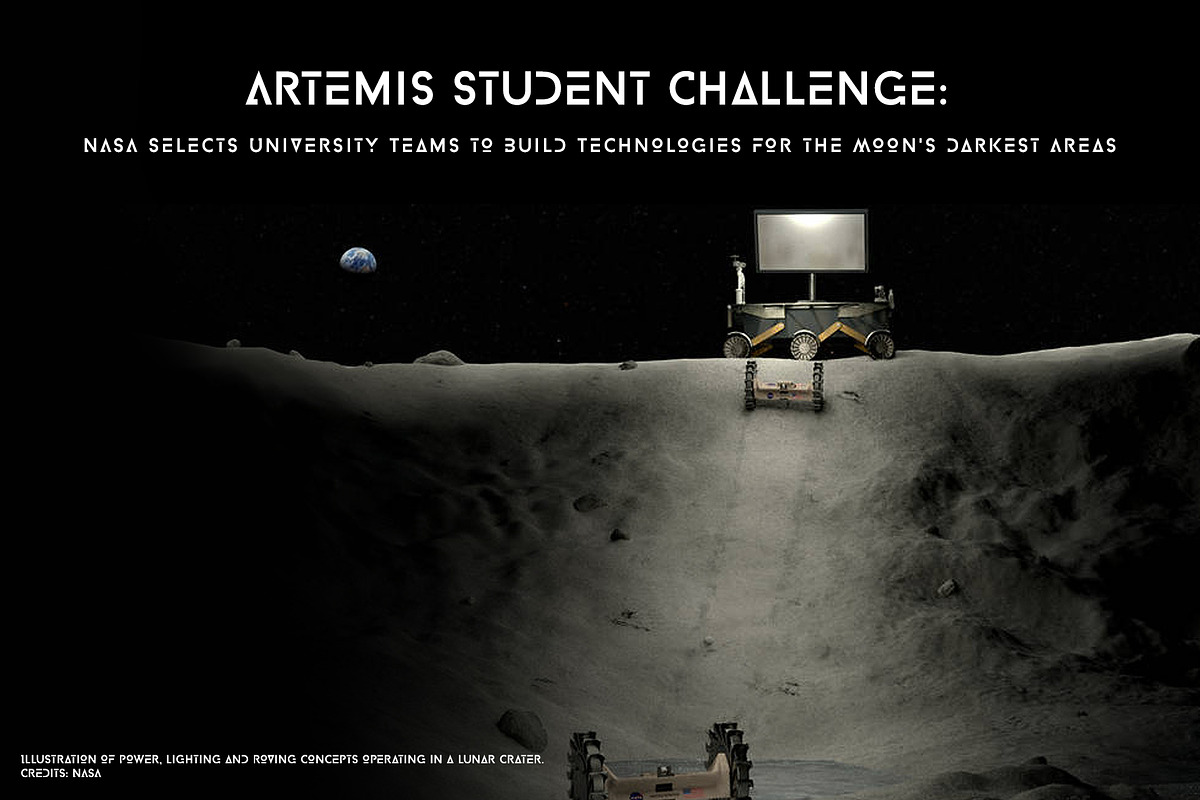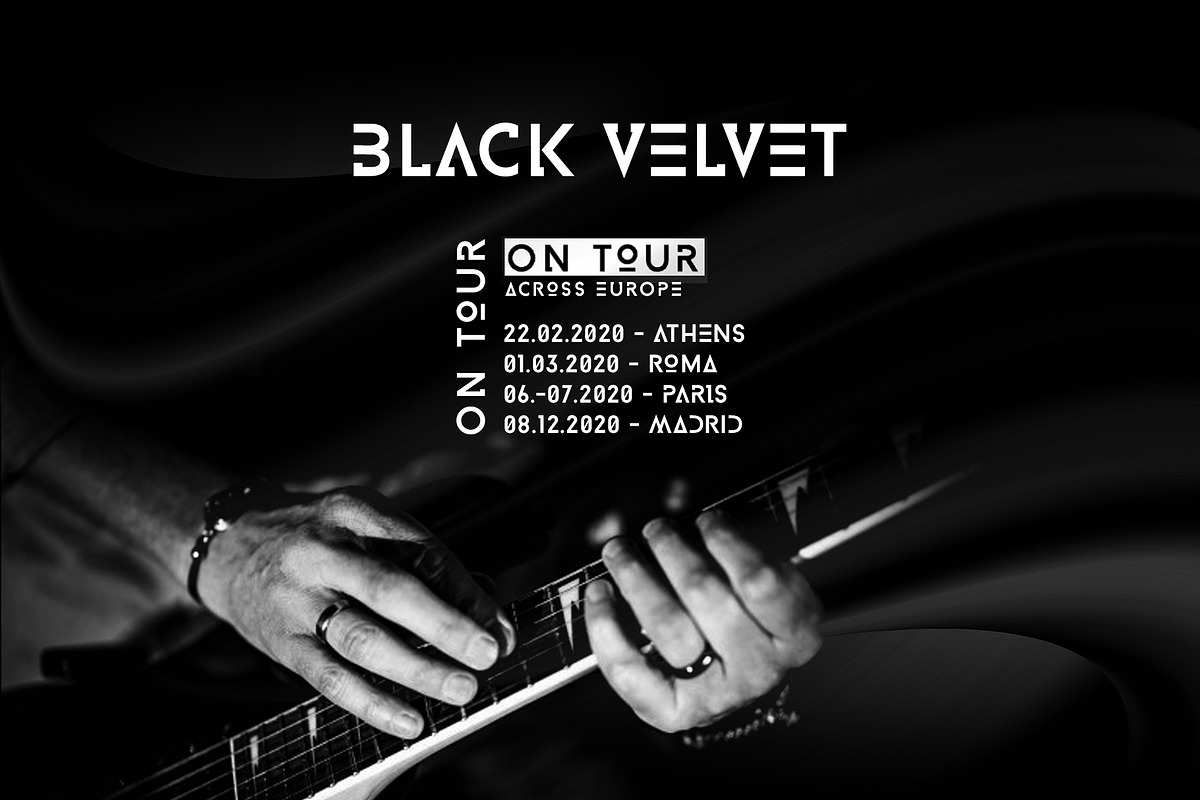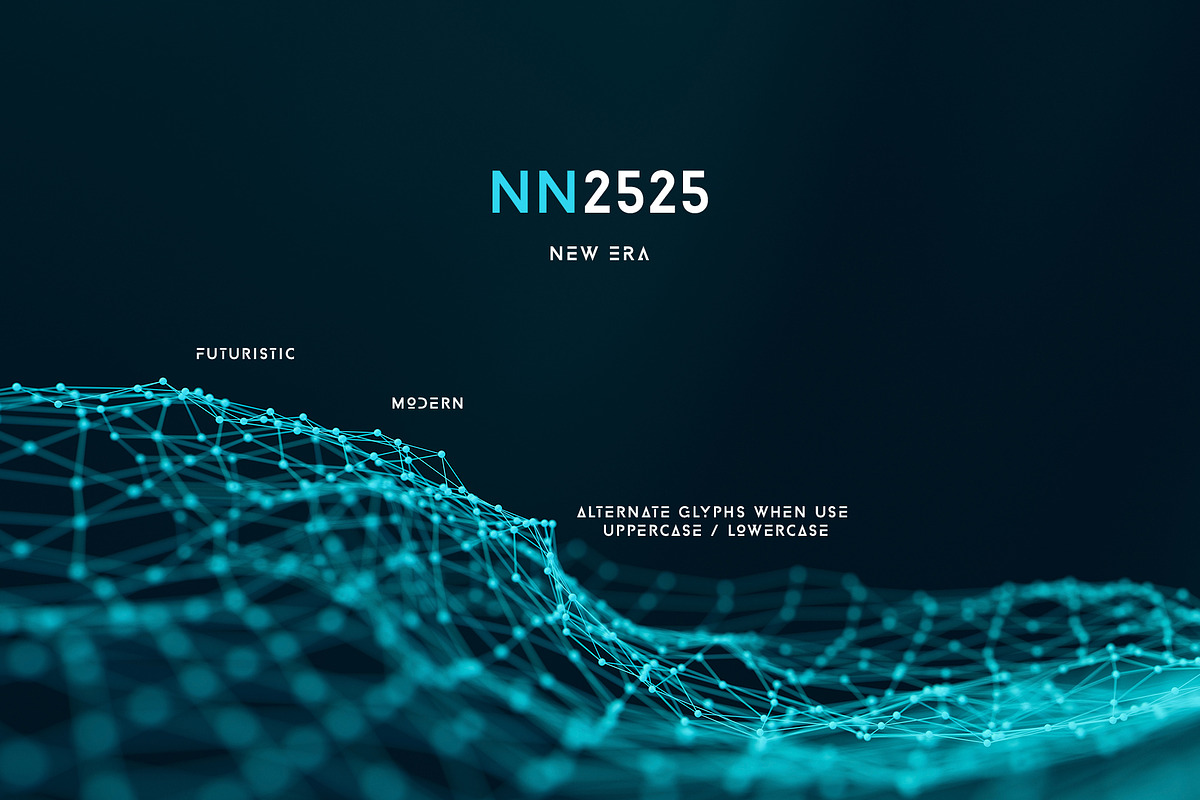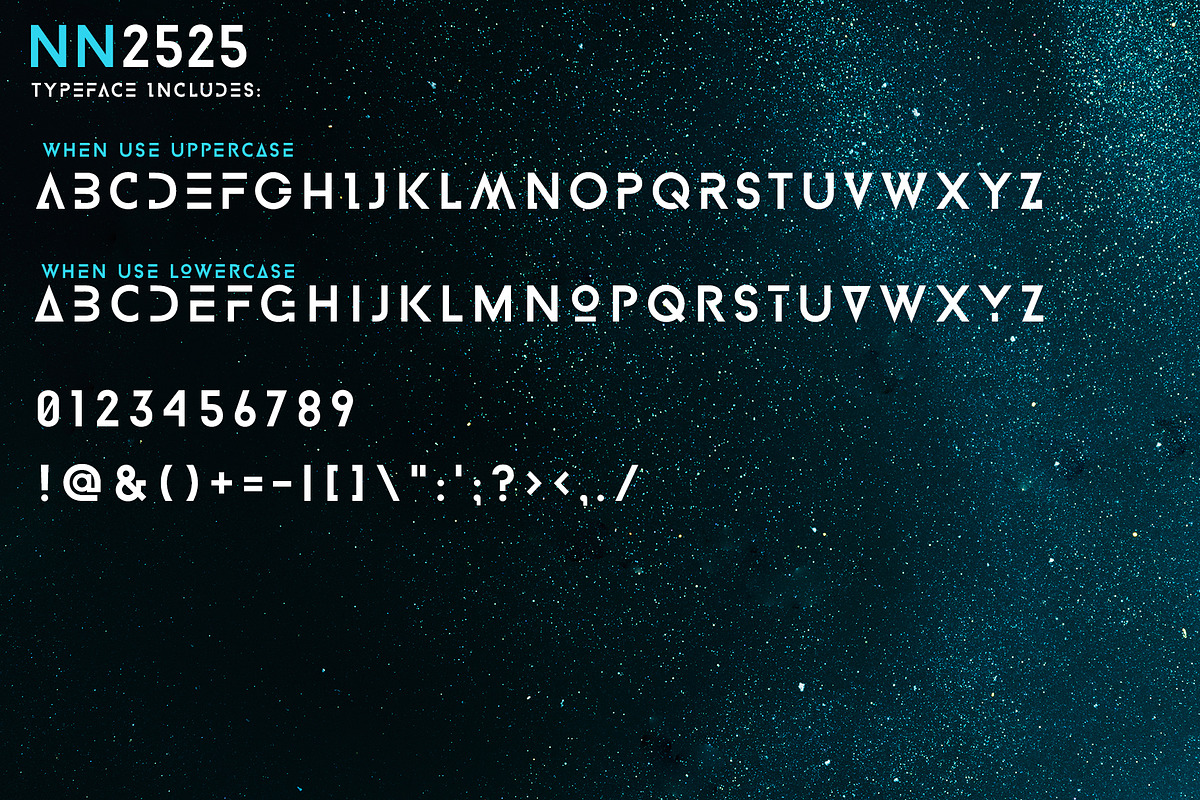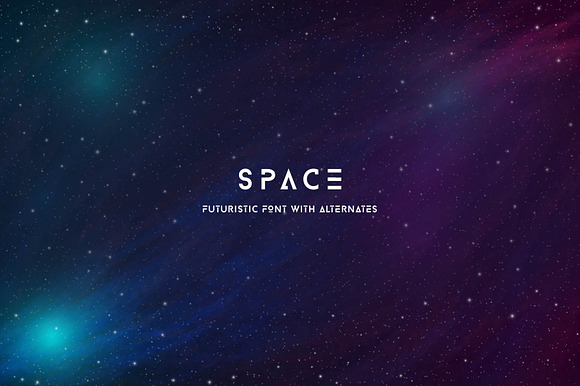
NN2525 - A modern space font.
New, modern, futuristic font with alternate letters. What you see on the images is what you get. OTF format. Thank you for visiting my store.
- New, modern, futuristic font with alternate letters.